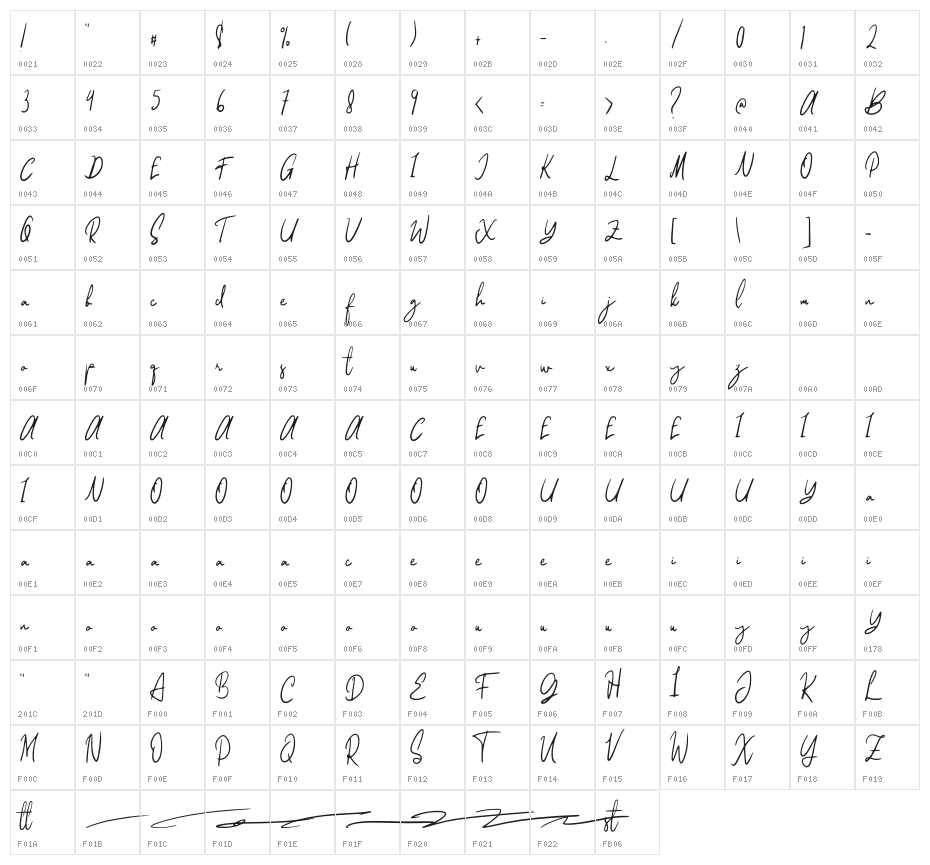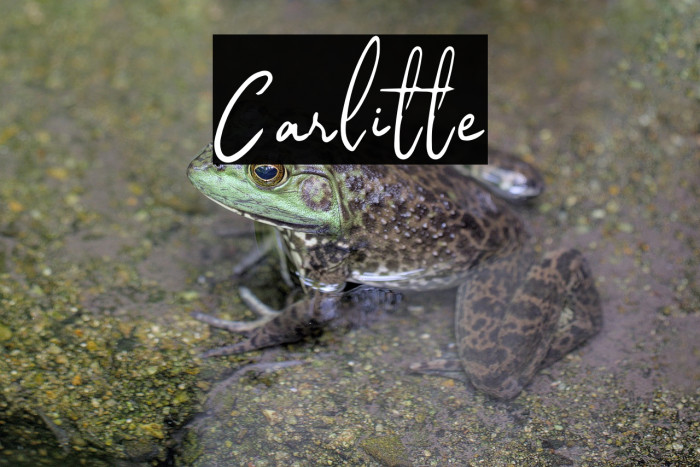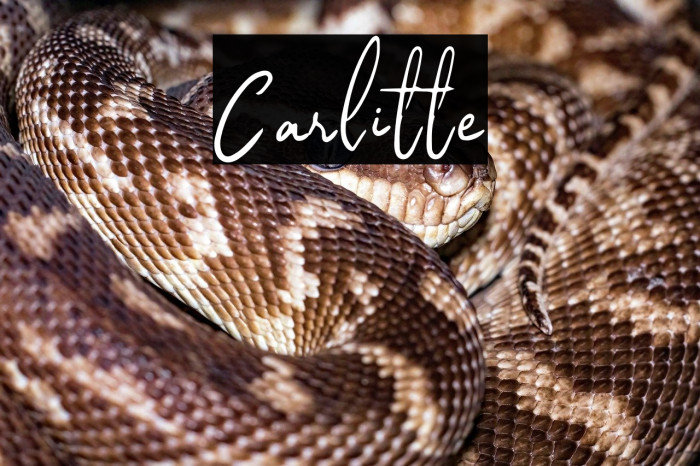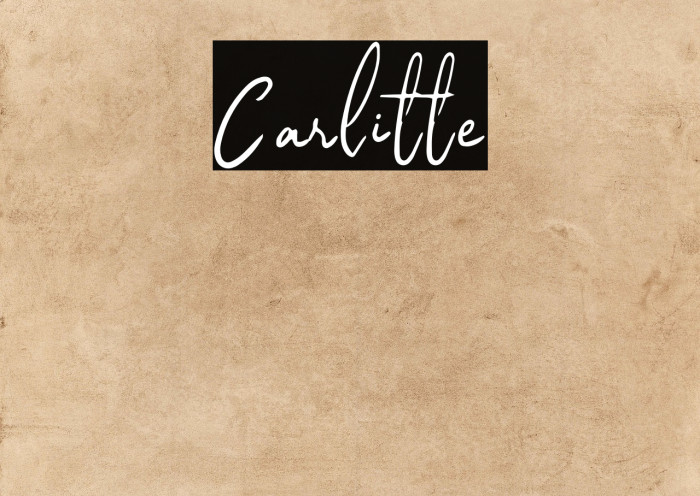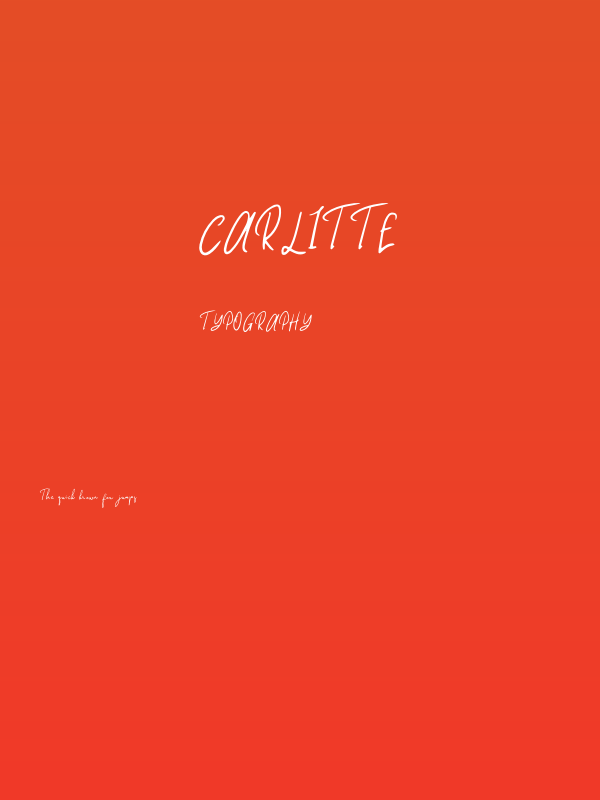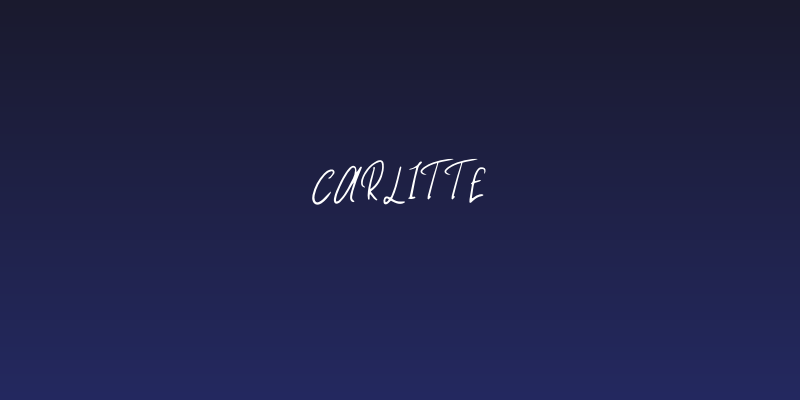
Carlitte Font
Carlitte Description
This font features a dynamic and fluid script style, characterized by its elegant and flowing letterforms. The uppercase letters are bold and slightly slanted, giving a sense of movement and grace. The lowercase letters maintain a consistent flow, with smooth curves and a handwritten appearance. The numerals are clear and distinct, matching the overall style of the font. Special characters are included, maintaining the same fluidity and elegance. This font is ideal for projects that require a personal touch, such as invitations, greeting cards, or branding materials.
| Overall Style | Elegant, Handwritten |
| Use Case | Headlines, Logos, Invitations |
| Proposed Projects | Ideal for invitations, greeting cards, branding, and personal projects. |